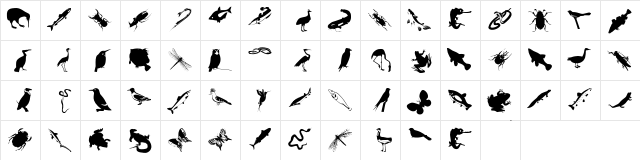
AnimalishSilhouettes Regular
Design Context for AnimalishSilhouettes Typeface
AnimalishSilhouettes is a composed and adaptable typeface that performs quietly and consistently across a wide range of design contexts.